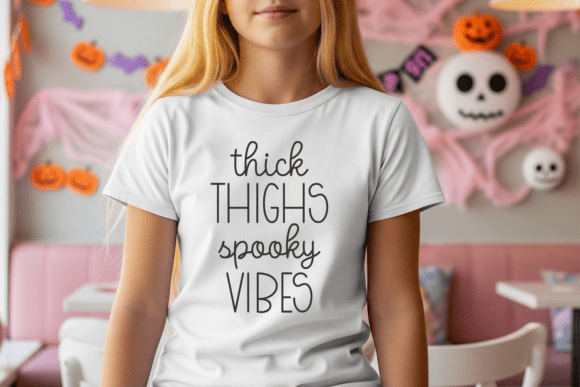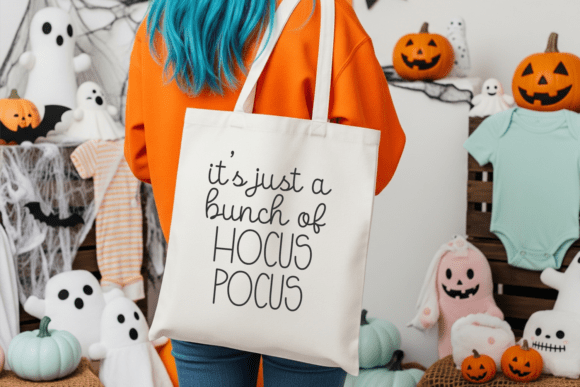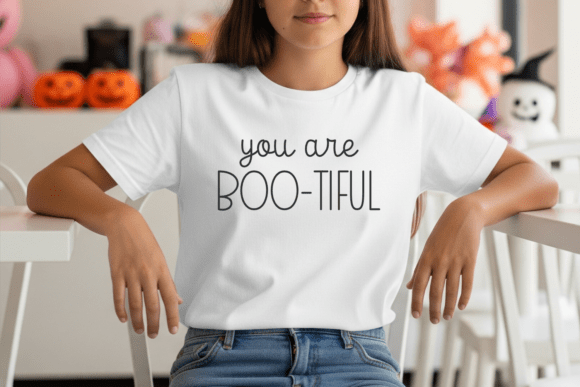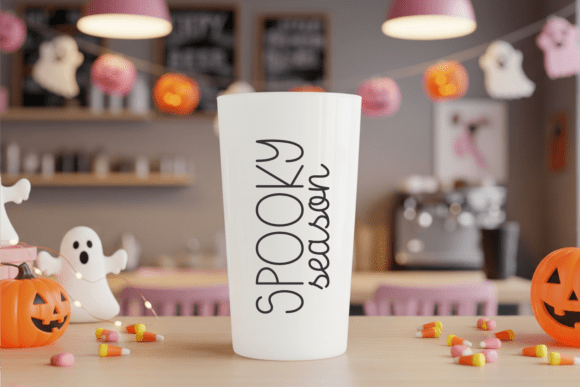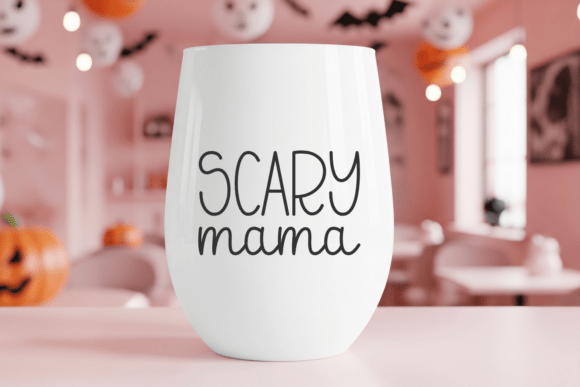
Introduction to Handwritten Halloween Font
Introducing Handwritten Halloween, a charming monoline script designed with precision and a dash of spookiness.
Its refined and smooth curves align it perfectly with a playful Halloween ambiance Ideal for sprucing up t-shirts, tote bags, mugs, tumblers, and Halloween posters; itโ€™s also a hit for crafting those spine-chilling party invitations.
Key Features of Handwritten Halloween Font
Why Choose Handwritten Halloween Font?